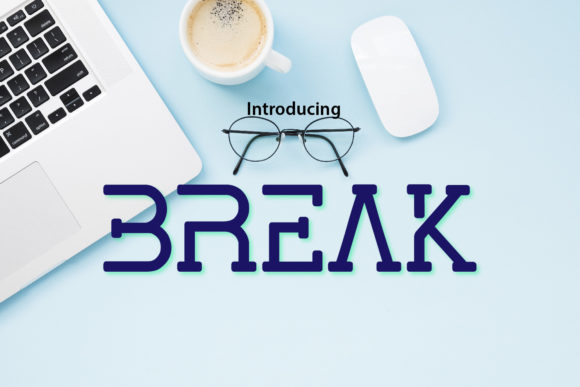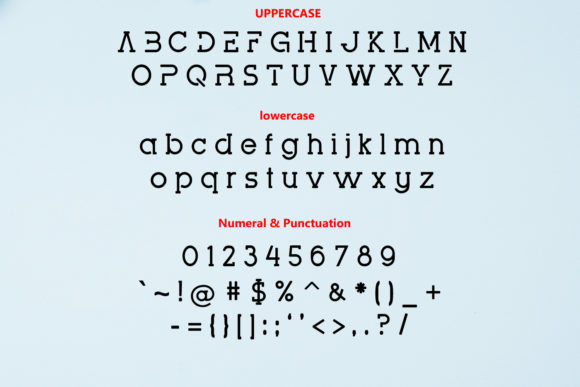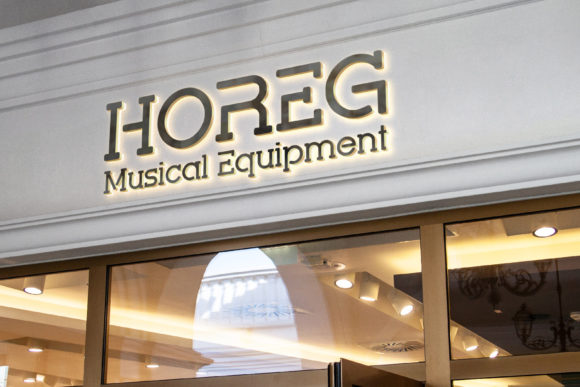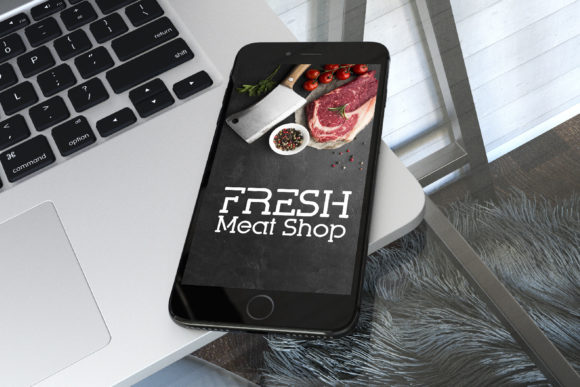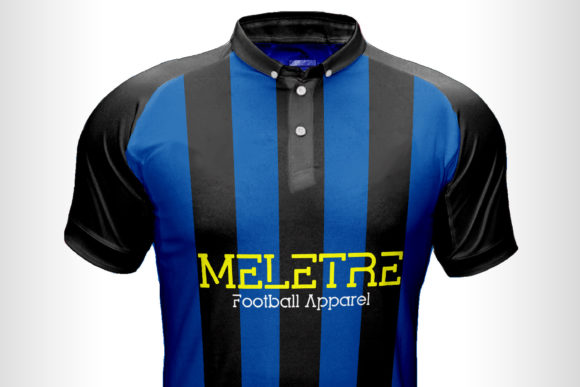
Break
Break: A Minimal and Elegant Slab Serif Font
Break is a distinctive slab serif font that combines minimalism with elegance. This versatile typeface is suitable for a wide variety of designs due to its neat and simple style, making it a potential favorite go-to font for any occasion.
Key Features of Break
• Minimal Design: Features clean and uncomplicated letterforms for maximum readability.
• Elegant Aesthetic: Offers a refined look that adds sophistication to designs.
• Slab Serif Structure: Maintains the characteristic thick, rectangular serifs typical of slab serif fonts.
• Versatile Application: Suitable for a wide range of projects due to its neat and simple style.
• Go-To Potential: Designed to be a favorite choice for various occasions and design needs.
Ideal Uses for Break
Break’s unique characteristics make it particularly well-suited for:
• Clean and modern branding projects
• Minimalist website designs
• Editorial layouts and magazine spreads
• Business cards and stationery
• Packaging design for products aiming for a sleek look
When incorporating Break into your designs, consider the following tips:
• Use for both headlines and body text to showcase its versatility and readability
• Experiment with different sizes to highlight the font’s elegant details
• Consider pairing with sans-serif fonts for a modern, clean look
• Take advantage of its simplicity in projects that require a minimalist touch
Break is an excellent choice for designers looking to add a minimal yet elegant slab serif font to their typographic toolkit. Its neat and simple style makes it stand out in the world of typography. Whether you’re working on logo designs, creating layouts for modern websites, or developing content that requires a clean and sophisticated touch, Break offers the perfect blend of minimalism and elegance.
Add Break to your font library and explore how it can elevate your designs with its minimal and elegant style. From sleek headlines to readable body text, this font provides the tools to create impactful and memorable typography that resonates with audiences seeking a clean and modern aesthetic. It’s versatile enough to be used in various contexts, from vintage-inspired designs with a modern twist to playful layouts that need a touch of sophistication.
Whether you’re creating a magical and mysterious atmosphere or aiming for a more thoughtful and introspective mood in your designs, Break can adapt to your needs. Its flexibility allows it to work well in both rustic, vintage-style projects and holiday-themed designs that require a modern update. For those looking to add a touch of minimalism with a timeless feel, this font can even complement vintage Christmas-inspired creations with a unique, contemporary twist.